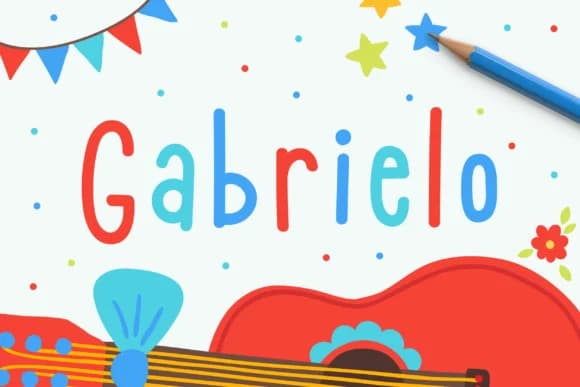
Gabrielo by typefairy is a monoline handwritten script that infuses designs with genuine, hand-drawn character. This single-stroke typeface captures the authentic charm of natural penmanship, making it ideal for projects that demand a personal, approachable voice rather than rigid formality.
The versatility of Gabrielo shines across numerous creative contexts. Wedding invitation suites benefit from its flowing letterforms and romantic quality, giving couples a sophisticated yet intimate presentation option. Small businesses and artisans use it for packaging labels on handcrafted products, where the typeface's organic feel builds genuine connection with customers. DIY enthusiasts employ Gabrielo for hand-lettered craft signage, whether creating personalized wall decor or gift tags. The monoline construction provides reliable consistency across different sizes and applications, from prominent headlines to smaller descriptive text.
Beyond its aesthetic appeal, the font's carefully designed character set and uniform stroke weight make it a practical choice for designers seeking authenticity without sacrificing legibility. Gabrielo works equally well in digital contexts and print materials, adapting seamlessly to your creative vision. Whether you're designing stationery systems, creating social media graphics, or developing brand identities with personality, this typeface brings warmth and sincerity to your work. Discover Gabrielo on Creative Fabrica and bring this inviting, character-rich script to your design projects.
Gabrielo Font is a script font that shines as a display or heading face. Pair it with a clean sans-serif or serif font for body text β the contrast creates a clear hierarchy while the two styles stay balanced and easy to read.